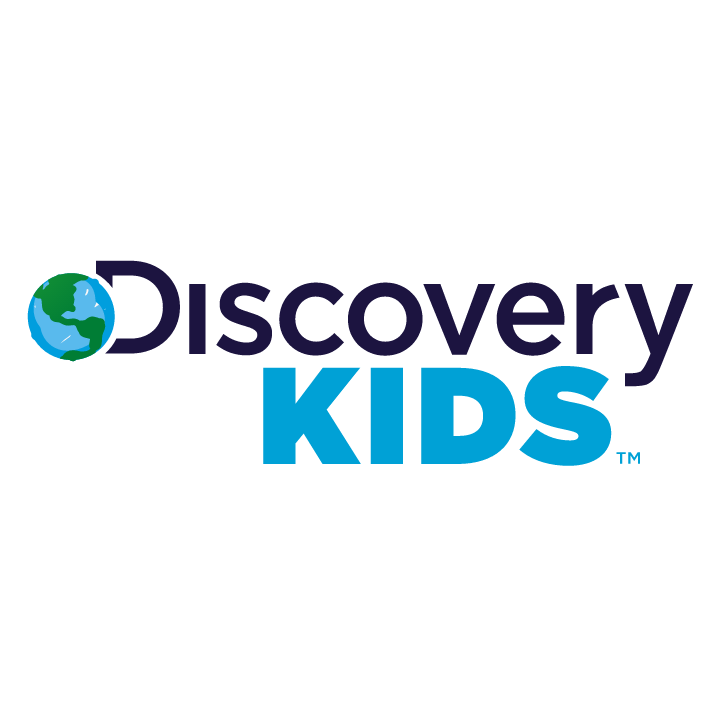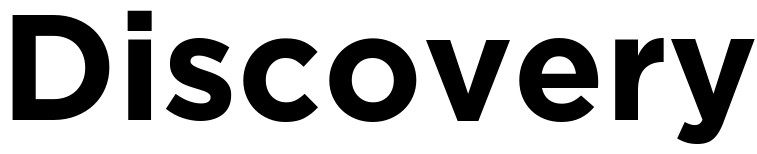
Discovery Kids Font
EntertainmentDiscovery Kids is a television channel that targets children aged 6 to 12 years old, featuring educational and entertaining programming on science, nature, and history. It is owned by Discovery, Inc. and operates in several countries worldwide.
The current Discovery Kids logo, which debuted in 2010, likely uses the Gotham font. Specifically, "Discovery" is set in Gotham Bold (with slight modifications), and "KIDS" is set in Gotham Ultra. The previous logo, used from 2002 to 2010, featured Aurora Bold Condensed for the “Discovery”, and Choc for the "Kids".